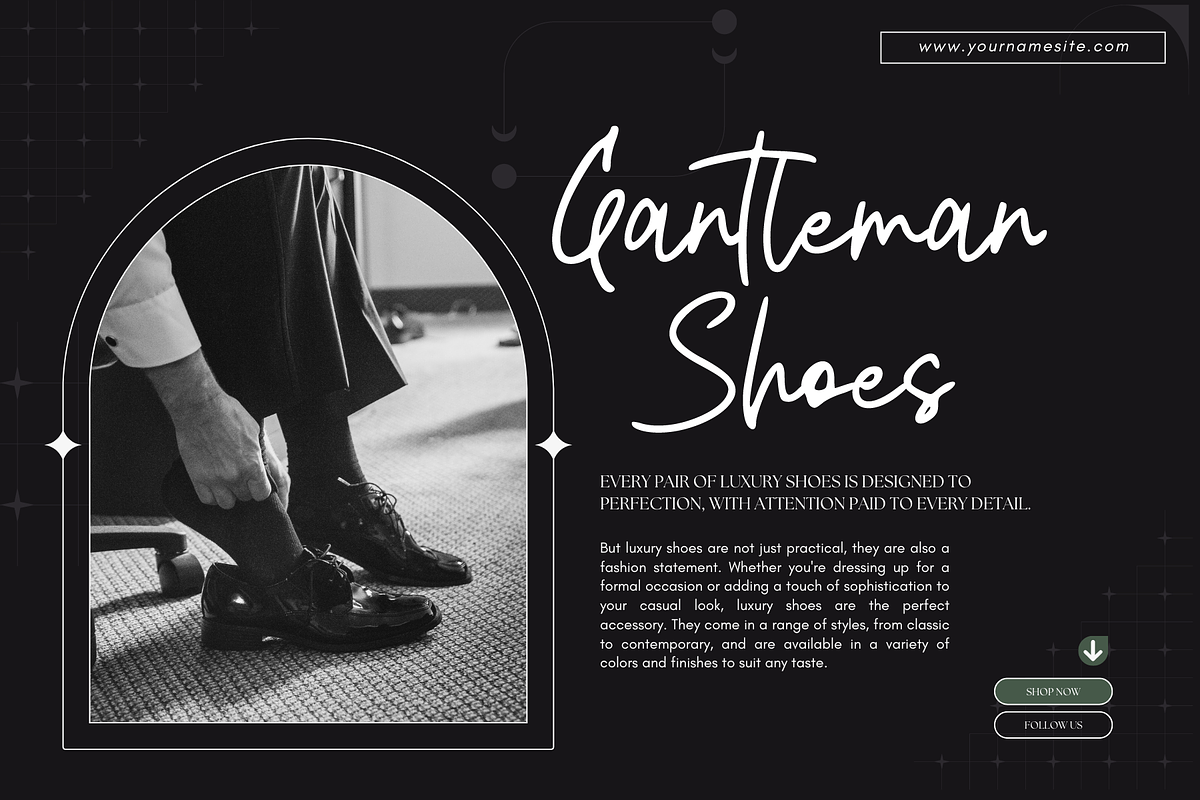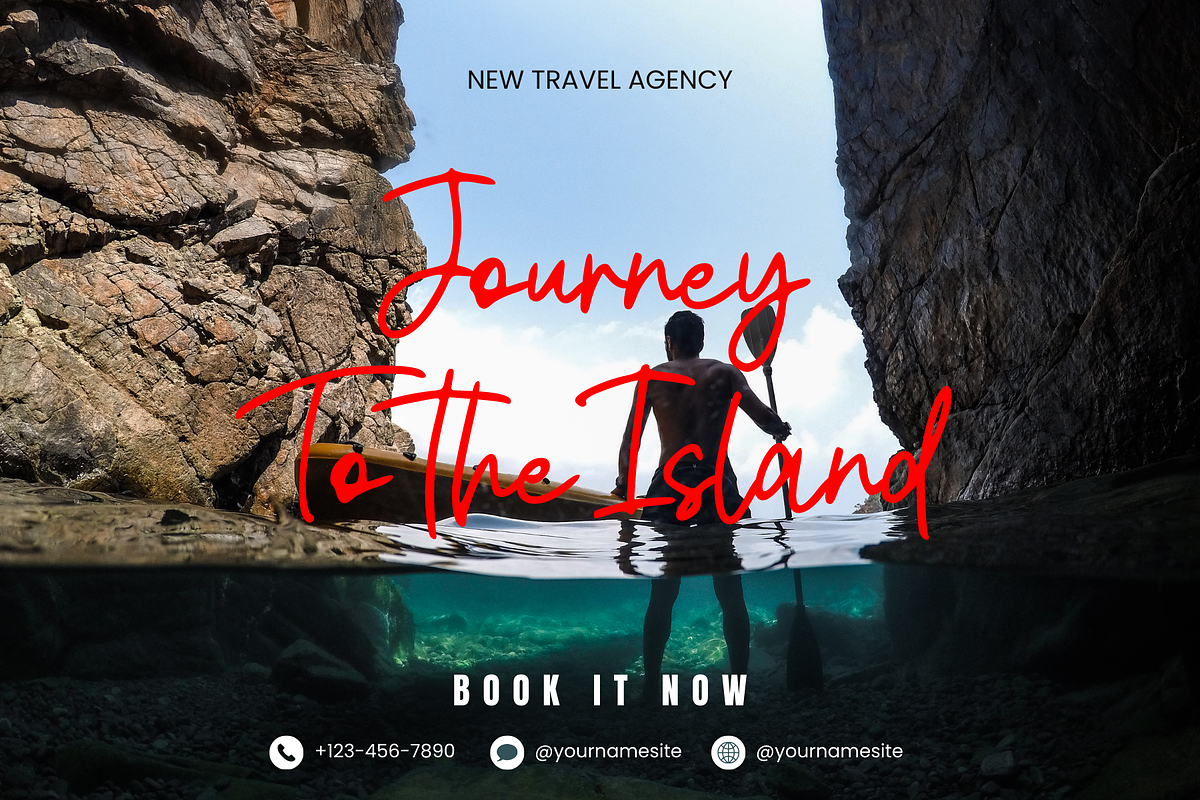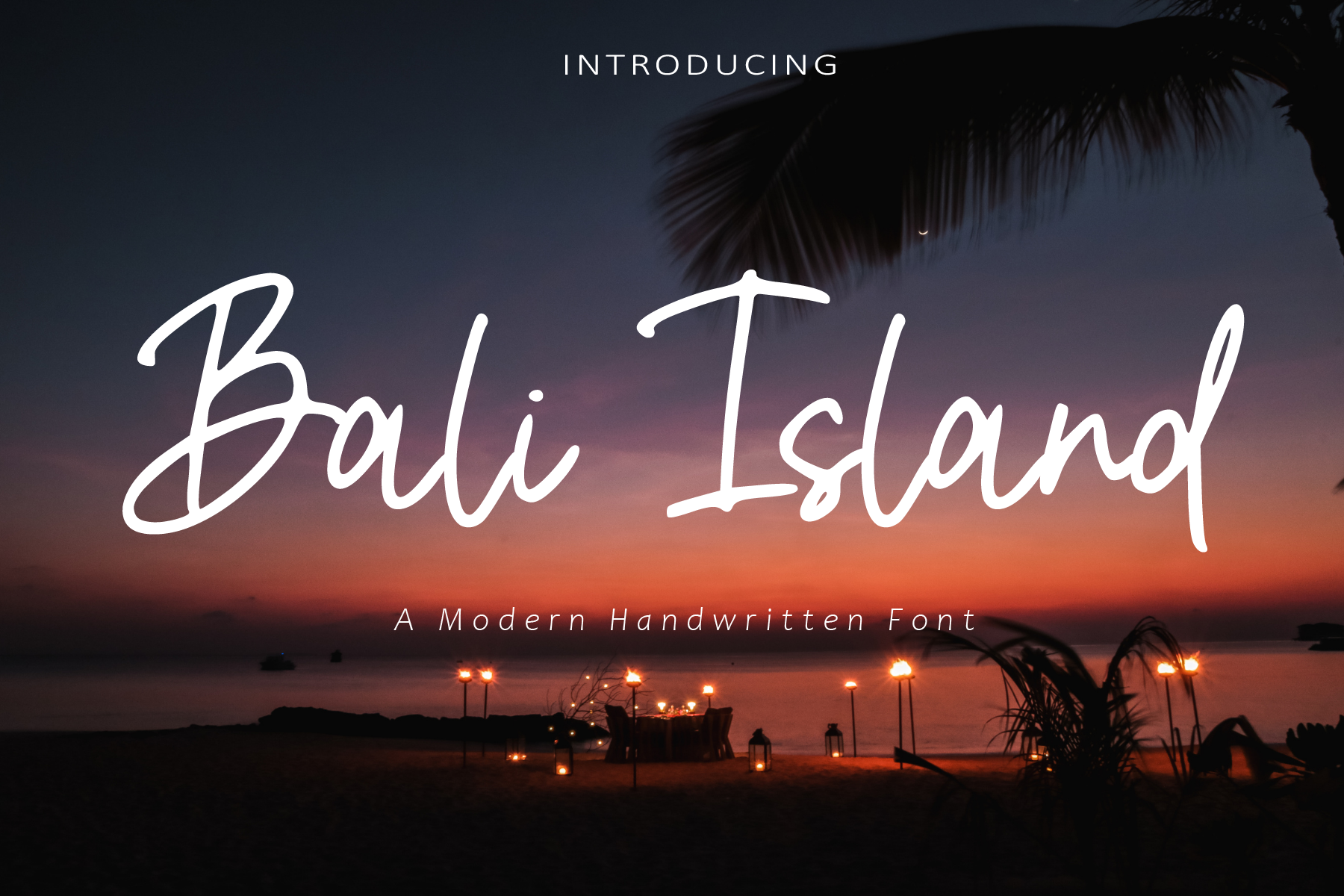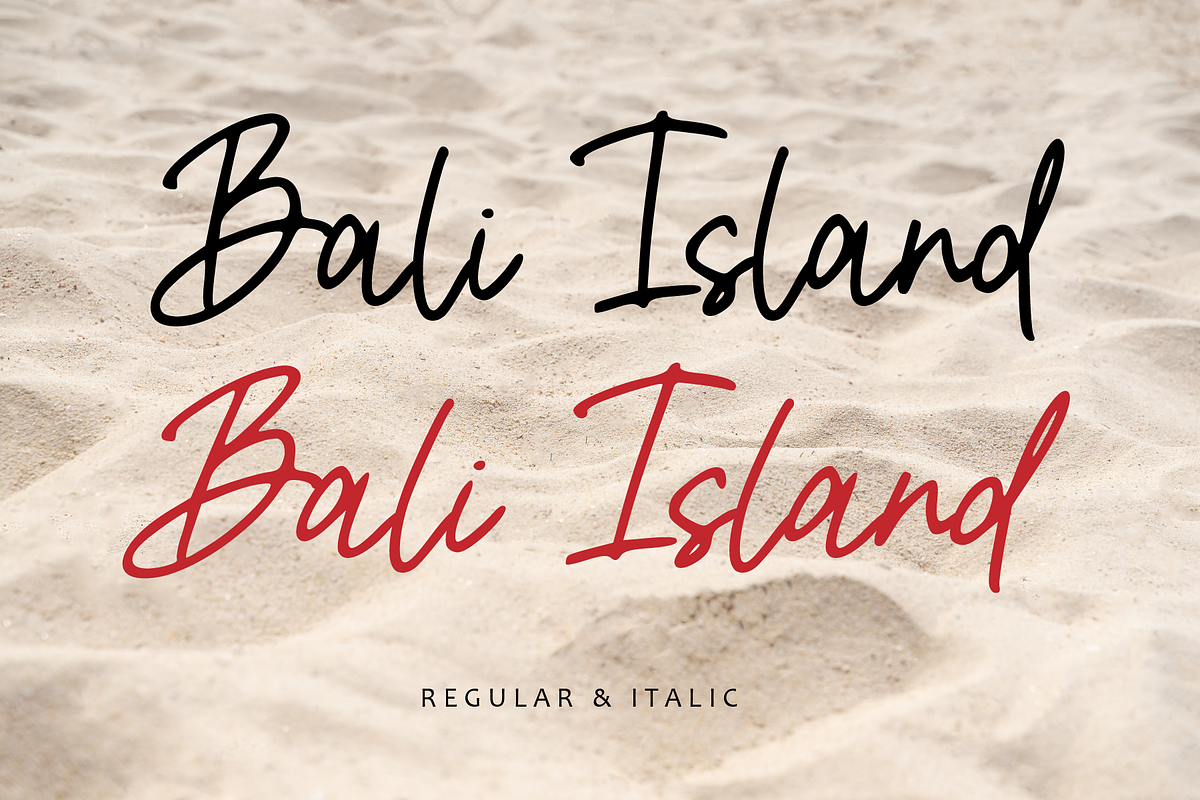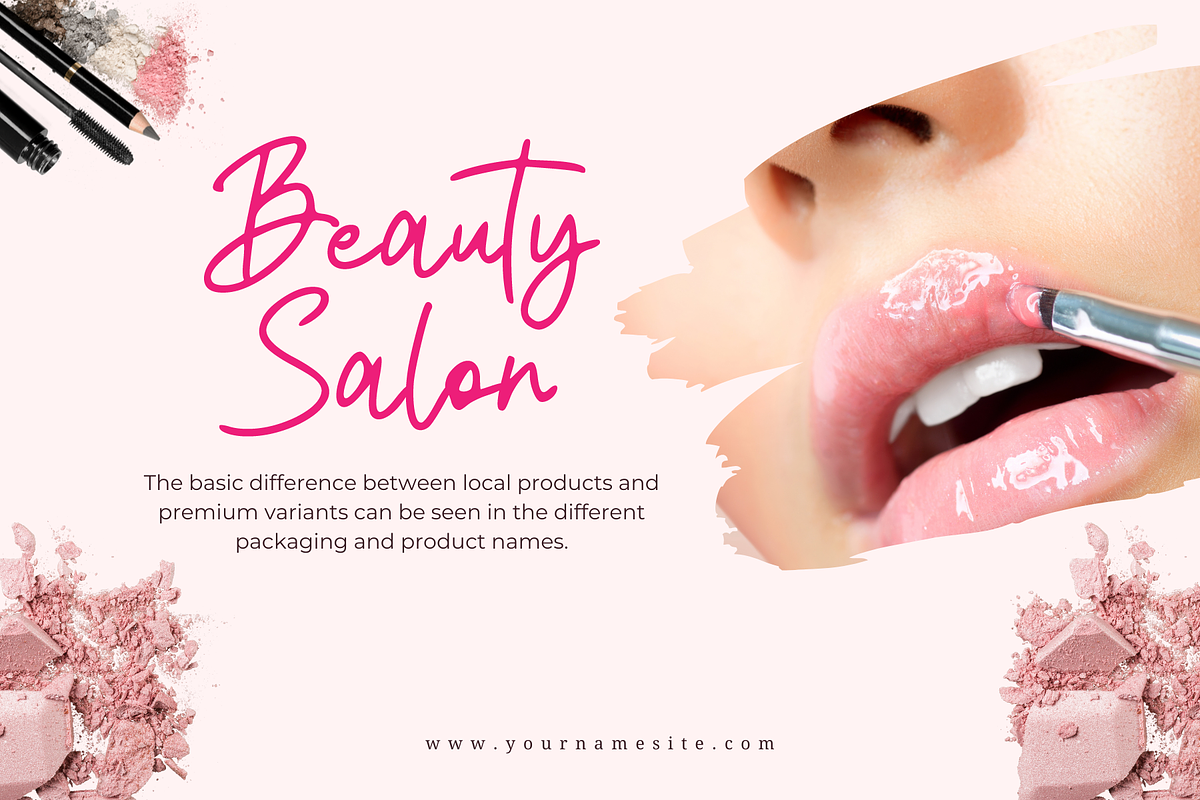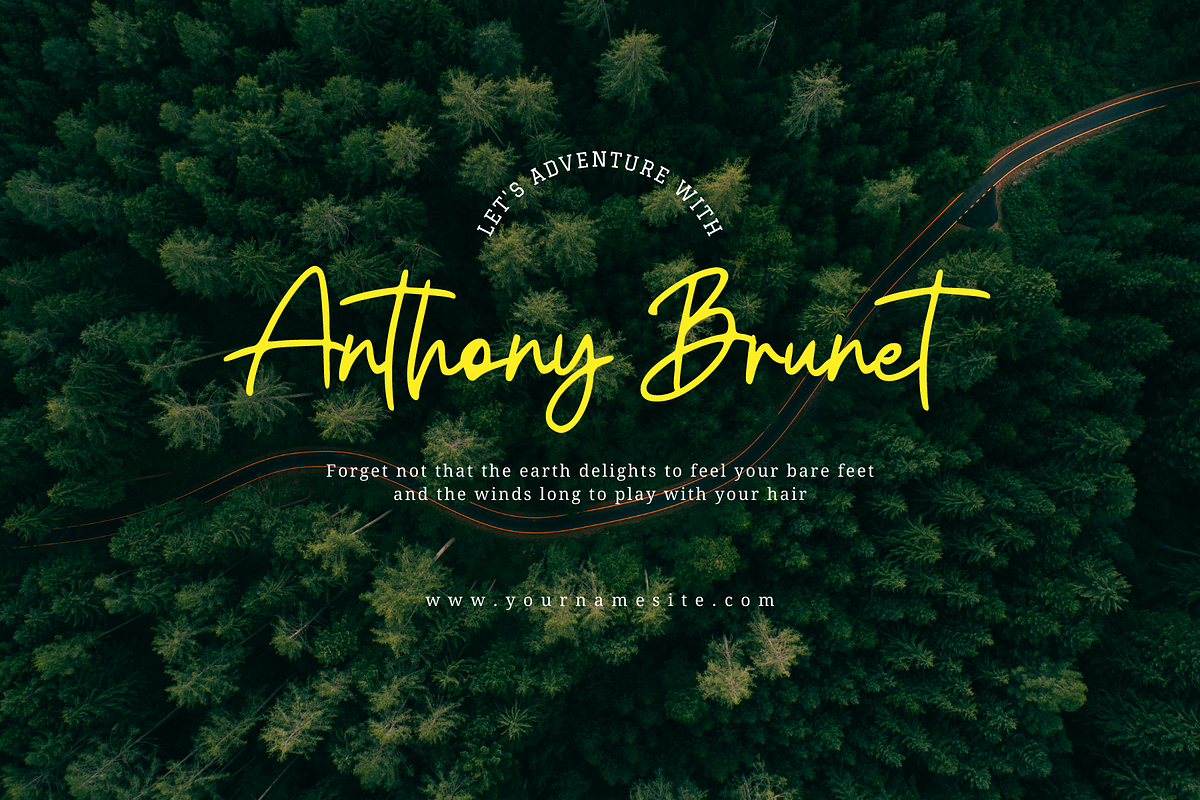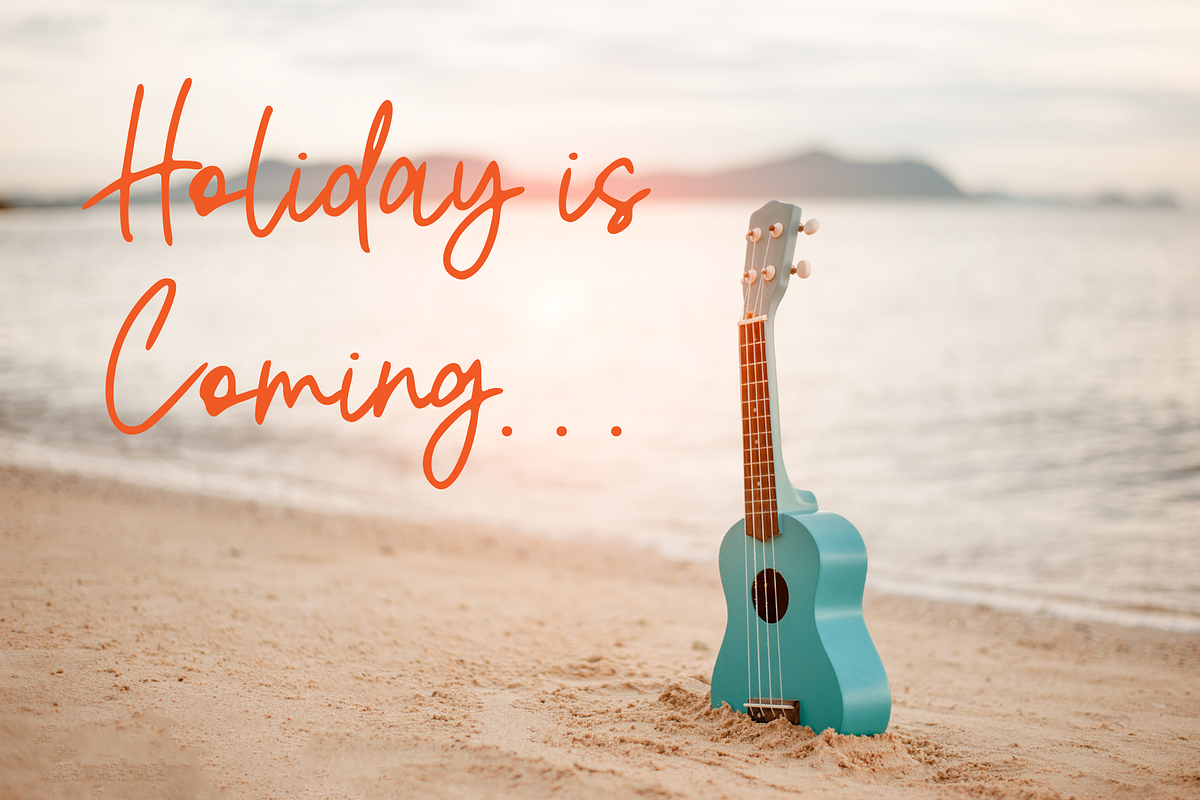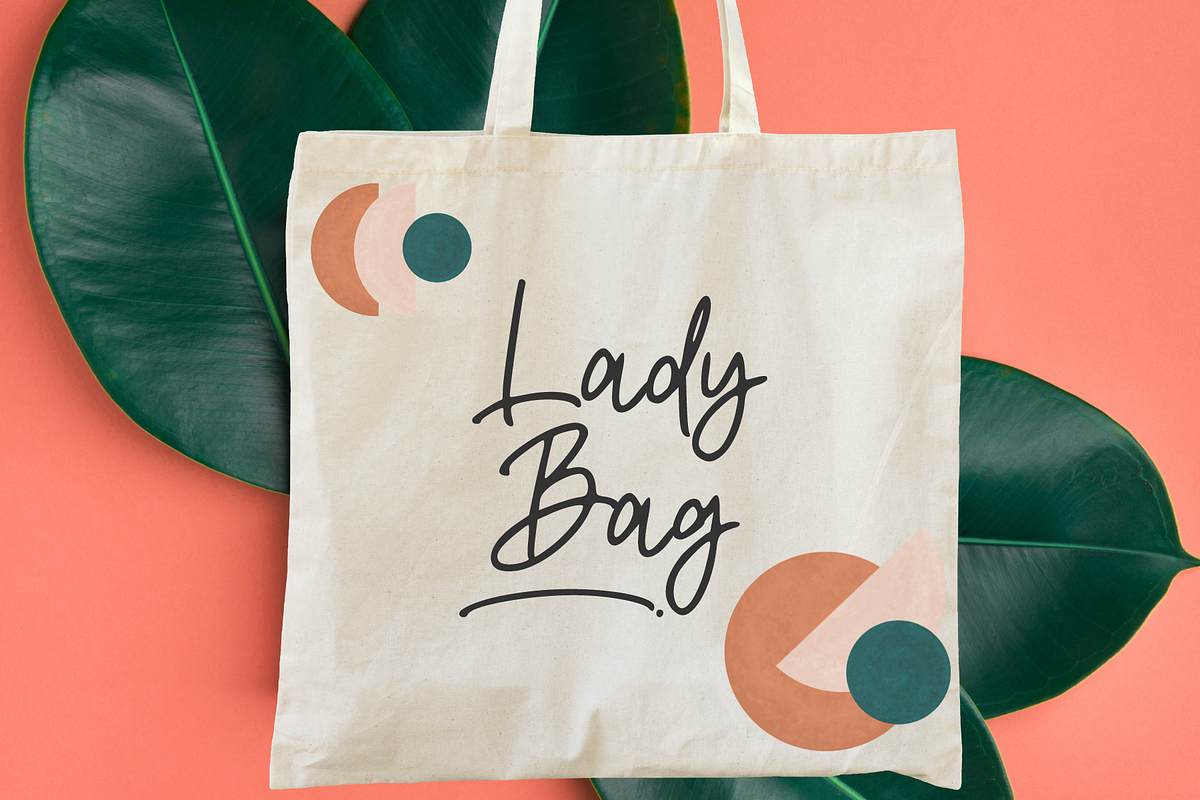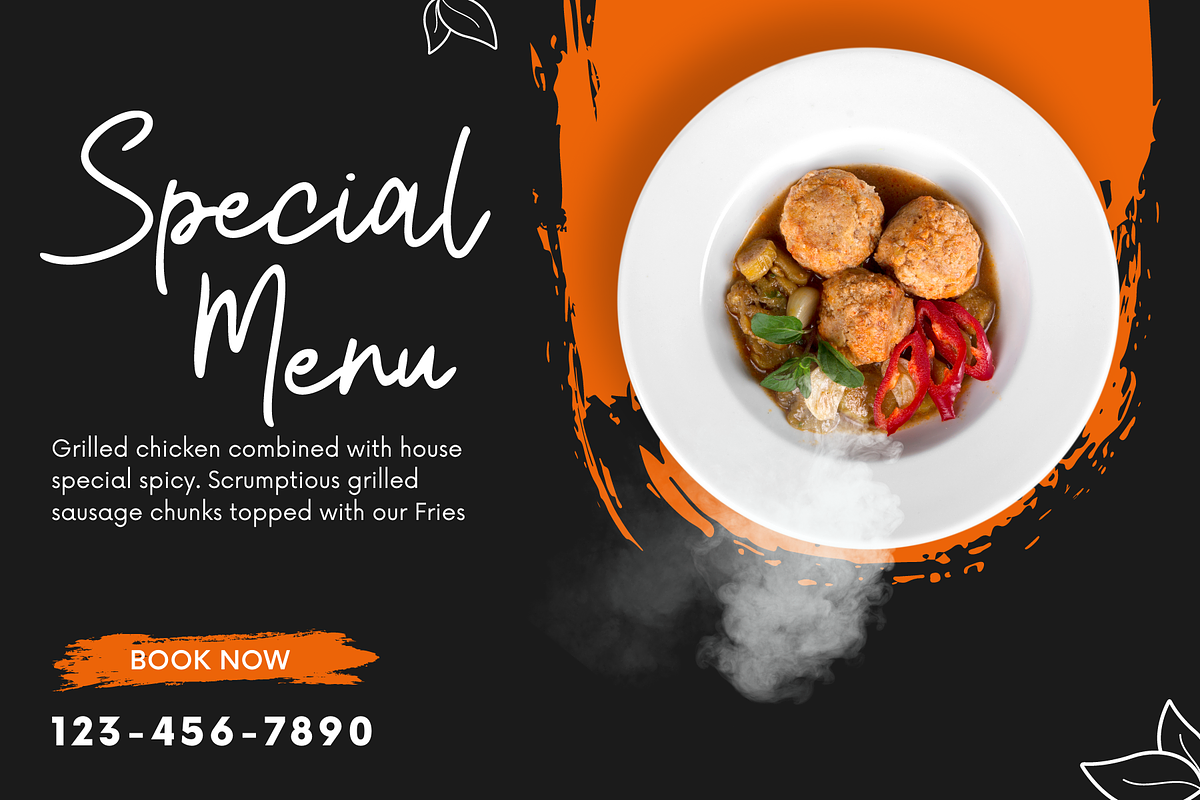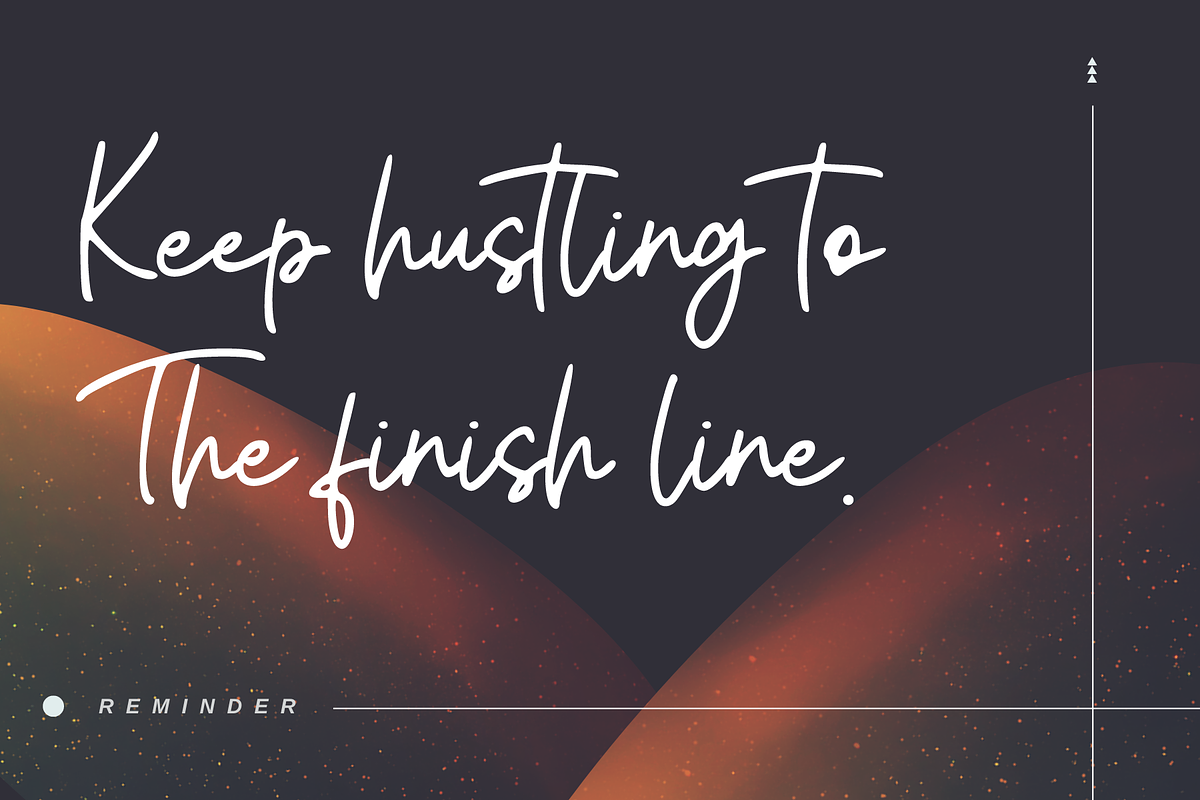
Bali Island - Handwritten Font
Bali Island is a Handwritten Script typeface, with its fine strokes making this font look very modern, stylish and luxurious. There is a swash effect on this font that makes this font look even bolder, more modern, stylish and of course luxurious.
Bali Island is perfect for branding projects, logo, wedding designs, social media posts, advertisements, product packaging, product designs, label, photography, watermark, invitation, stationery and any projects that need handwriting taste.